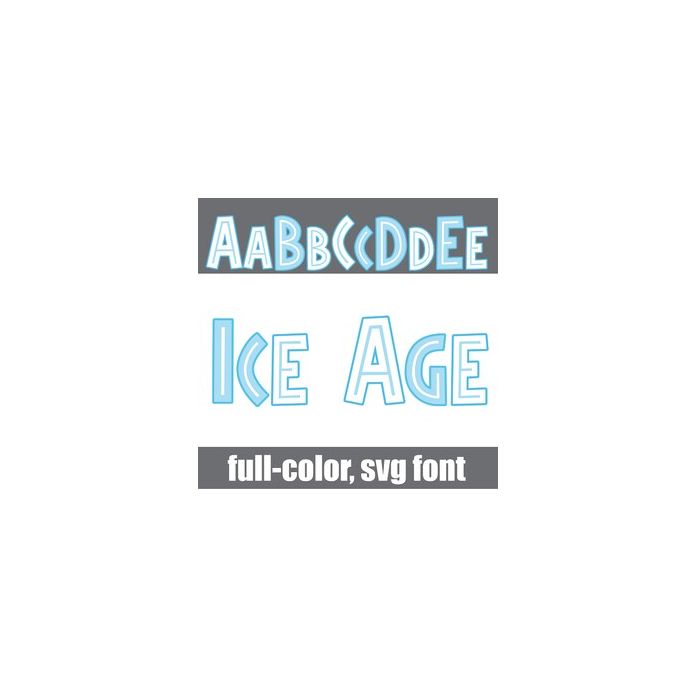
This full-color font features a blocky "ice age" sans serif in a winter color palette. There is an alt case w/ additional colors you can access through your system or Silhouette's glyph map.